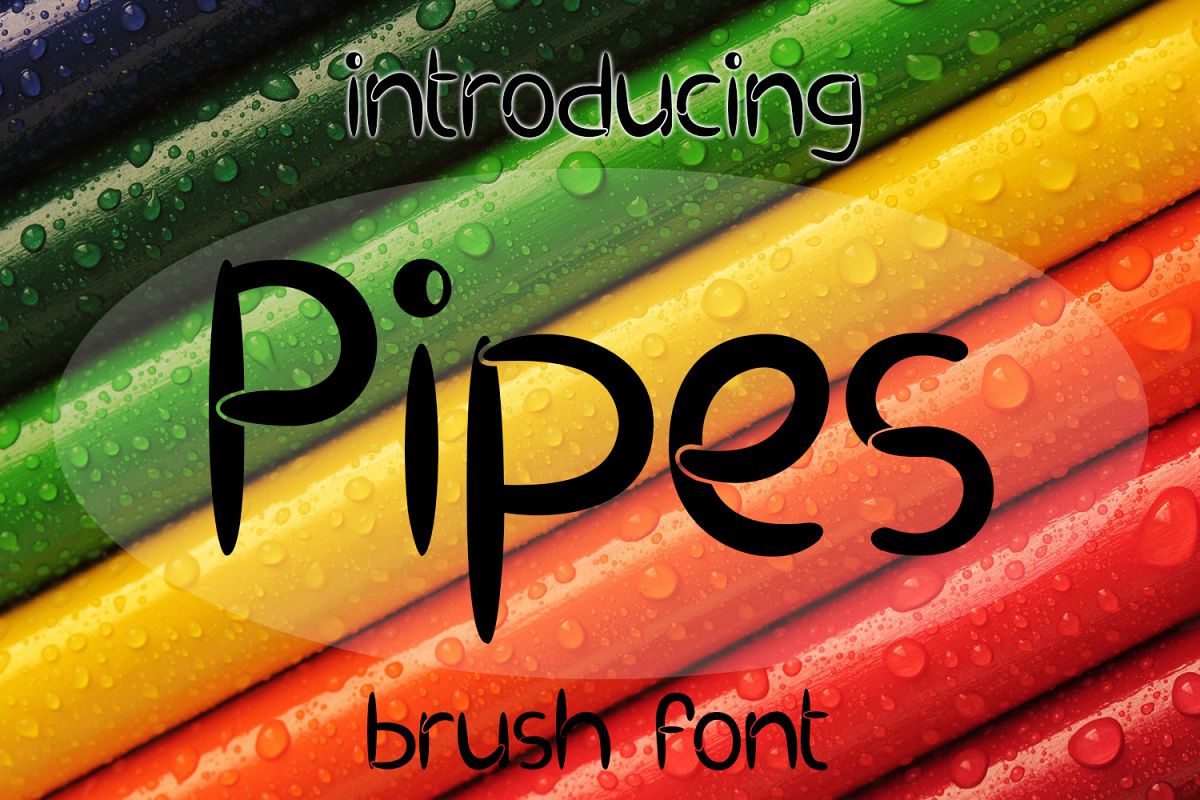
EP Pipes - Brush Font
EP Pipes
This font is perfect for wedding cards, quotes, headings, blogs, logos, invitations and more! Font includes all caps, punctuation, and numbers.